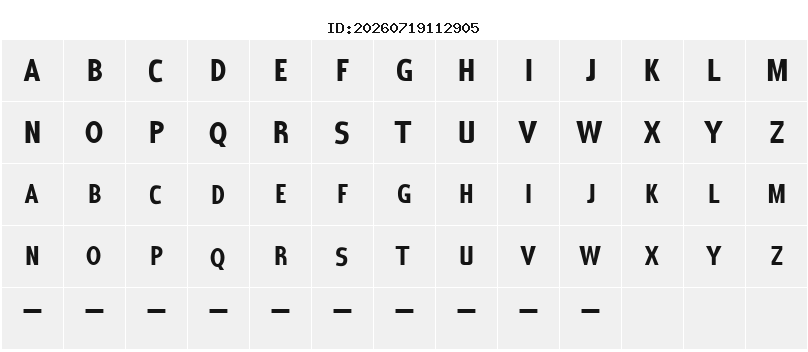
Coffee Shop Preview
• Font Name: Coffee Shop
• Font Style: Bold - Trial Version
• Full Font Name: Coffee Shop Bold Small Cap
• Designer: Doug Sheets
About Coffee Shop.ttf
Coffee Shop.ttf is a modern, elegant sans-serif font designed for ultimate readability and visual harmony. Perfect for branding, headlines, web design, and print materials.